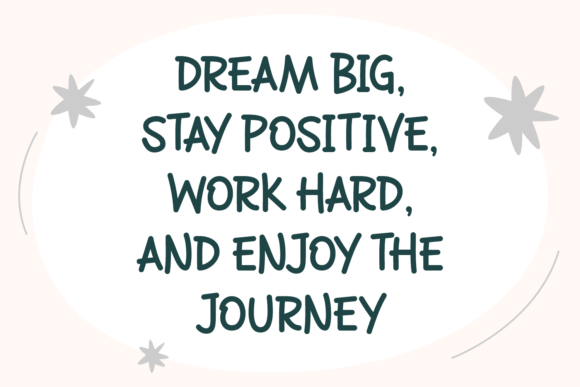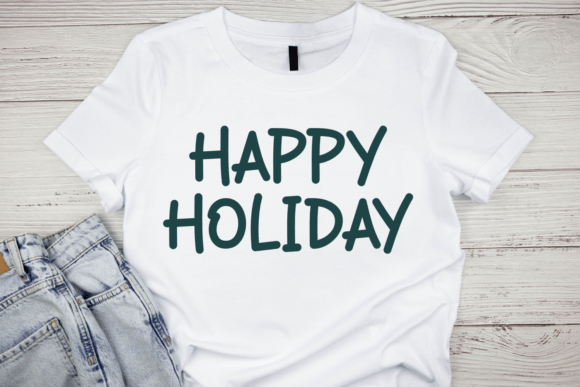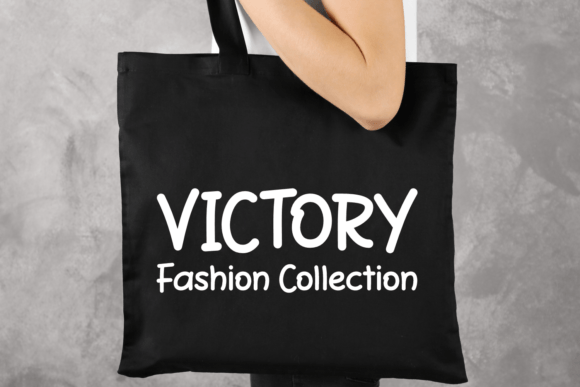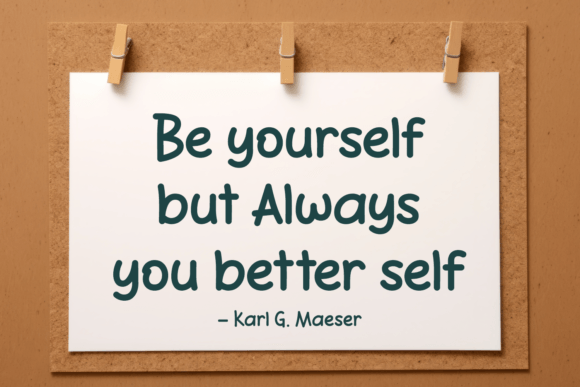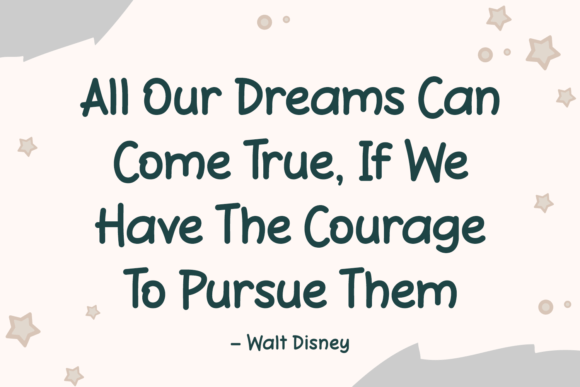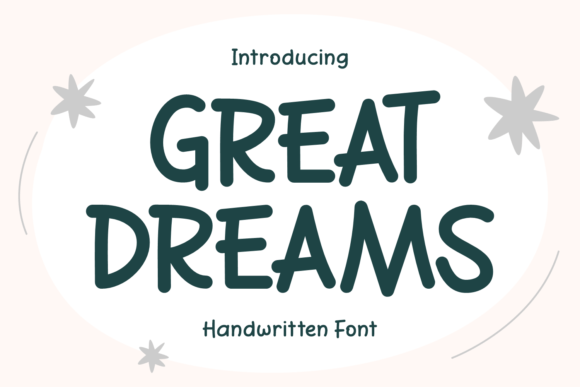
Introducing Great Dreams Font: A Playful Handwritten Typeface for Creative Projects
Are you a designer, crafter, or DIY enthusiast looking for a font that can add a touch of playfulness and whimsy to your creative projects? Look no further than Great Dreams Font, a versatile and charming handwritten typeface that’s perfect for a wide range of applications. In this article, we’ll explore the features and benefits of Great Dreams Font, and show you how it can elevate your designs and crafts to the next level.
What is Great Dreams Font?
Great Dreams Font is a playful handwritten typeface that’s designed to bring a sense of fun and personality to your projects. Its unique and charming lettering style is reminiscent of a child’s scribbles, making it perfect for projects that require a touch of innocence and playfulness. The font is highly legible and versatile, making it suitable for use in a variety of contexts, from greeting cards and children’s books to logos, posters, and social media graphics.
Features of Great Dreams Font
So, what makes Great Dreams Font so special? Here are just a few of its key features:
- Playful style: Great Dreams Font has a unique and playful style that’s perfect for adding a touch of whimsy to your projects.
- Versatility: The font is highly versatile and works well in a variety of contexts, from formal to informal.
- Legibility: Great Dreams Font is highly legible, making it perfect for use in body text, headings, and titles.
- Customizability: The font can be easily customized to fit your project’s specific needs, from adjusting the font size and color to adding textures and effects.
Use Cases for Great Dreams Font
Great Dreams Font is suitable for a wide range of creative projects, including:
- Greeting cards: Add a touch of playfulness and personality to your greeting cards with Great Dreams Font.
- Children’s books: The font’s playful style makes it perfect for use in children’s books, from picture books to early readers.
- Invitations: Use Great Dreams Font to create custom invitations for parties, events, and special occasions.
- Logos: The font’s unique style makes it perfect for use in logos and branding materials.
- Posters: Great Dreams Font is perfect for creating eye-catching posters and flyers for events, promotions, and products.
- Party decorations: Use the font to create custom party decorations, from banners and garlands to cupcake toppers and gift tags.
- Social media graphics: Great Dreams Font is perfect for creating engaging and shareable social media graphics, from Facebook posts to Instagram stories.
Tips for Using Great Dreams Font
Here are a few tips for getting the most out of Great Dreams Font:
- Experiment with font sizes and colors: Great Dreams Font looks great in a variety of font sizes and colors, so don’t be afraid to experiment and find the combination that works best for your project.
- Add textures and effects: Consider adding textures and effects to your text to give it a more handmade and organic feel.
- Mix and match with other fonts: Great Dreams Font pairs well with a variety of other fonts, so feel free to mix and match to create a unique and interesting look.
Great Dreams Font is a playful and versatile handwritten typeface that’s perfect for designers, crafters, and DIY enthusiasts looking to add a touch of whimsy and personality to their creative projects. With its unique style, high legibility, and customizability, Great Dreams Font is suitable for use in a wide range of applications, from greeting cards and children’s books to logos, posters, and social media graphics. So why wait? Download Great Dreams Font today and start creating your own unique and engaging designs and crafts!